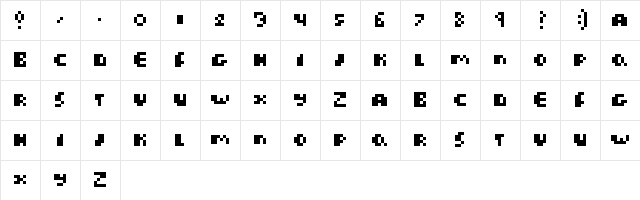
macaron Regular
| Designer | danixcalixluv |
Design Context for macaron Typeface
macaron offers clean, dependable letterforms without strong stylistic allegiance, making it a practical choice for designers who need flexibility.